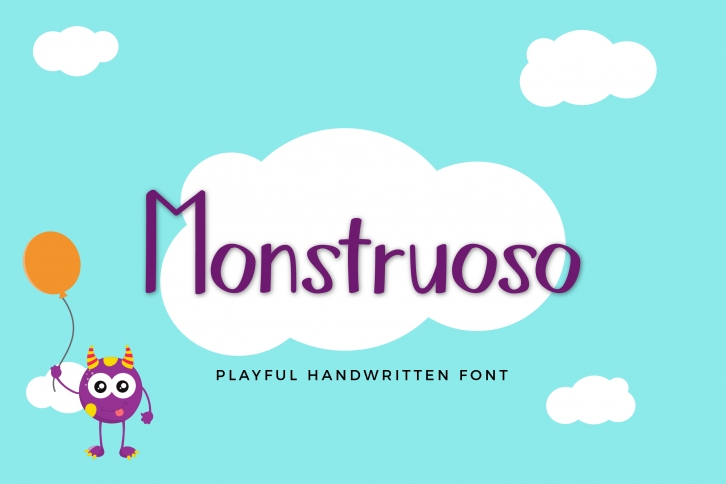
Monstruoso is a simple and adaptable handwritten font that can be used for all chalkboard quotes or teaching material! Its authentic look and feel will add a personal and realistic feel to your designs.